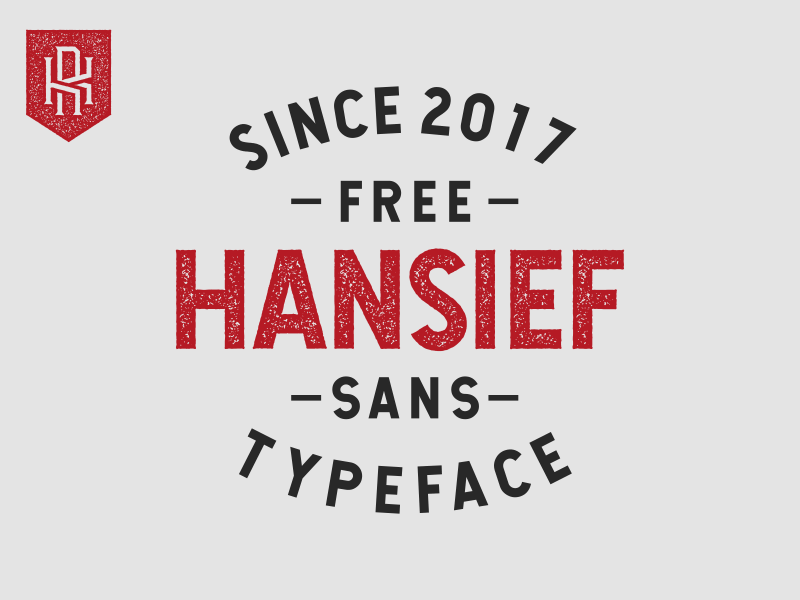
Hansief Font
Hansief is sans serif typeface in modern-vintage shape. The font comes in 2 styles which is Regular and Rough.
Hansief Font is great for so many projects, notes, greeting cards, scrapbooking, sign making, comics and I use this font to create wood signs.
Hansief Sans Serif Font